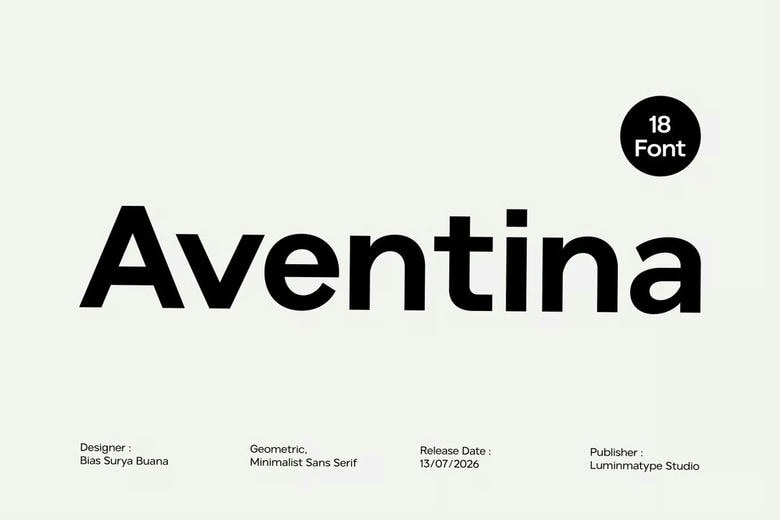
Aventina Font
Aventina is a modern geometric sans-serif font created by Luminatype Studio and washabibb. Its geometric design has been refined to make it both precise and easy to read.
Aventina is made for people who want clear and flexible type. It suits modern uses, from bold headlines to easy-to-read text in longer passages.
Aventina Sans Serif Font